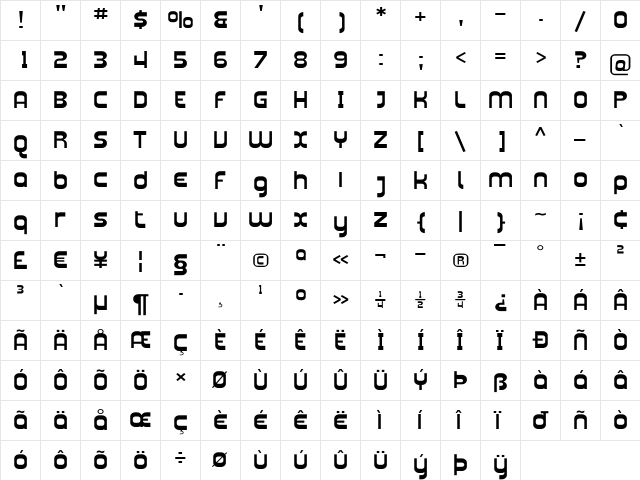
Plasmatica Ext Regular
| Designer | Derek Vogelpohl |
Design Context for Plasmatica Ext Typeface
Plasmatica Ext takes a measured approach to typography — its balanced proportions and neutral character make it a reliable workhorse for both digital and print work.